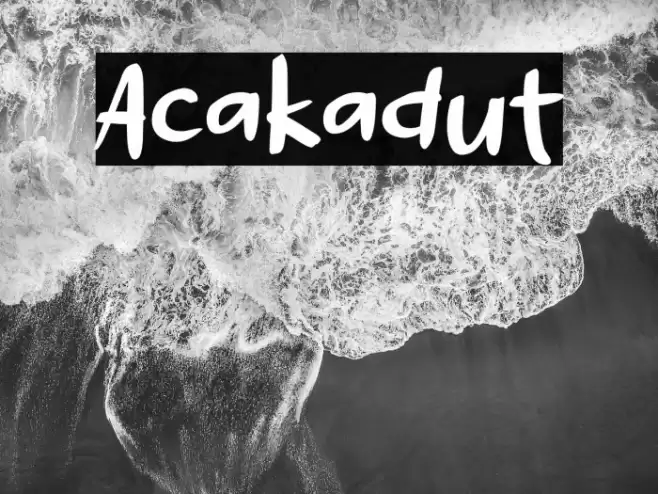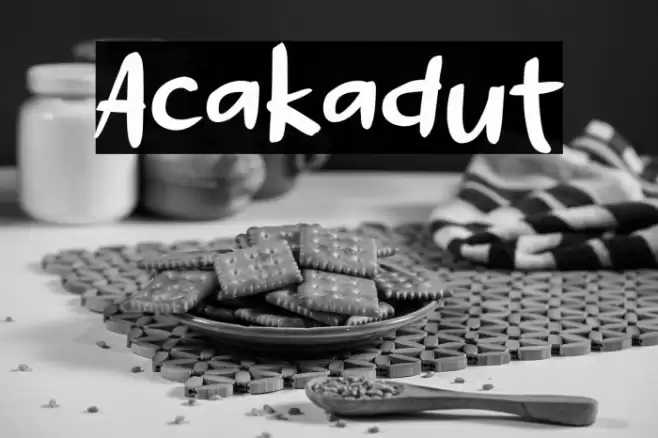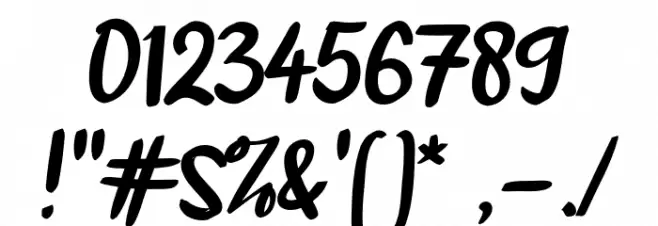
Acakadut Font
Acakadut Description
This font features a playful and dynamic handwritten style, characterized by its bold and slightly irregular strokes. The letters have a casual and friendly appearance, with a slight slant that adds to its informal charm. The uppercase letters are bold and prominent, while the lowercase letters maintain a consistent flow, enhancing readability. Numbers and special characters are designed to match the overall style, ensuring a cohesive look across all text elements. This font's energetic and lively nature makes it suitable for projects that aim to convey a sense of fun and creativity.
A bold, playful handwritten font with a casual and dynamic style from Uncategorized fonts.
- Proposed Projects: Ideal for greeting cards, children's books, playful branding, and social media graphics.
- Overall Style: Playful, Casual
- Use Case: Headlines, Logos, Informal Text